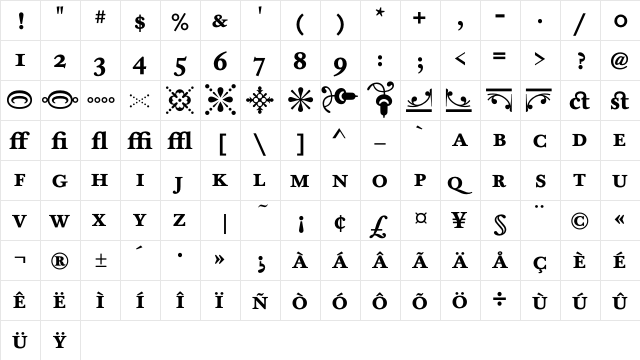
FoundryWilsonExpert Bold
Design Context for FoundryWilsonExpert Typeface
FoundryWilsonExpert is a composed and adaptable typeface that performs quietly and consistently across a wide range of design contexts. The heavy weight commands attention and anchors typographic hierarchies.